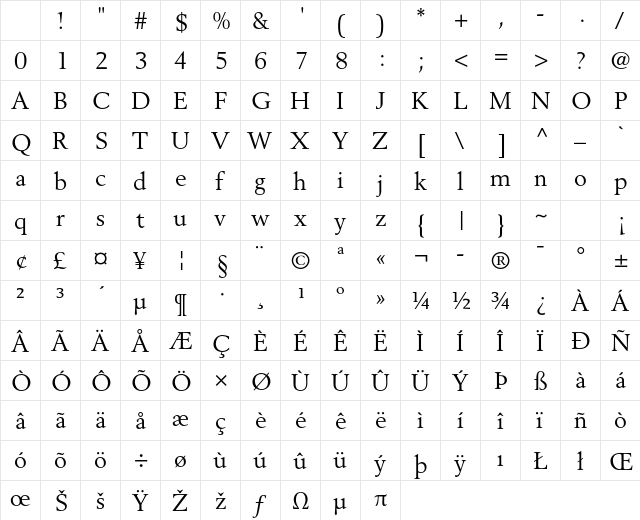
Complete Berling LT Std Roman glyph index. Displaying only characters natively supported by Berling LT Std Roman font.
Berling LT Std is a composed and adaptable typeface that performs quietly and consistently across a wide range of design contexts. Its slender proportions lend an understated elegance to any composition.